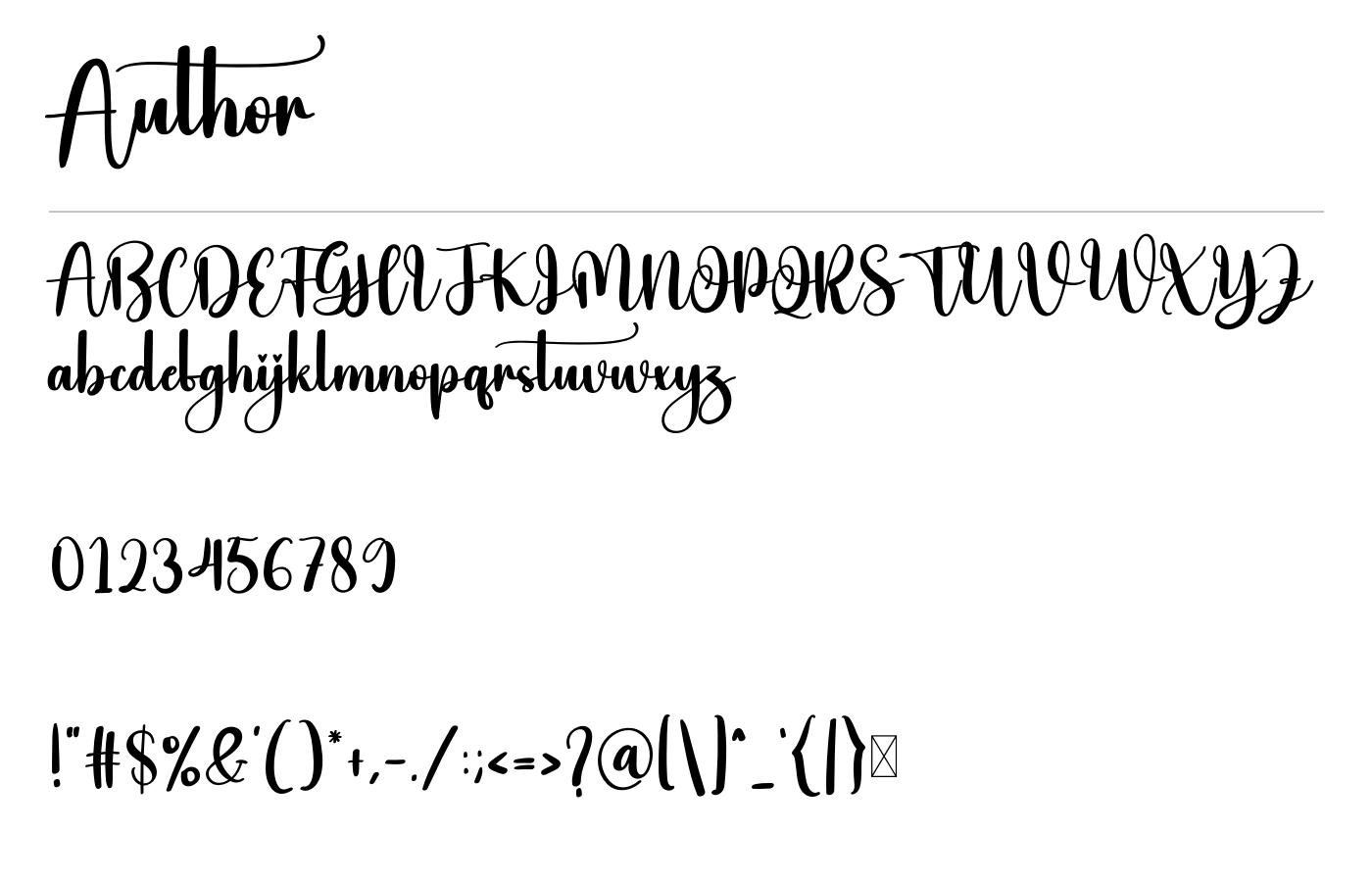
Author Font is a playful and elegant script typeface with a hand-drawn feel, featuring fluid strokes and whimsical swashes that add charm and personality. Its tall x-height and varying stroke widths give it a modern, lively look perfect for creative branding, invitations, or stylish headlines where a friendly, artistic touch is desired.
Author Font
About Author Font